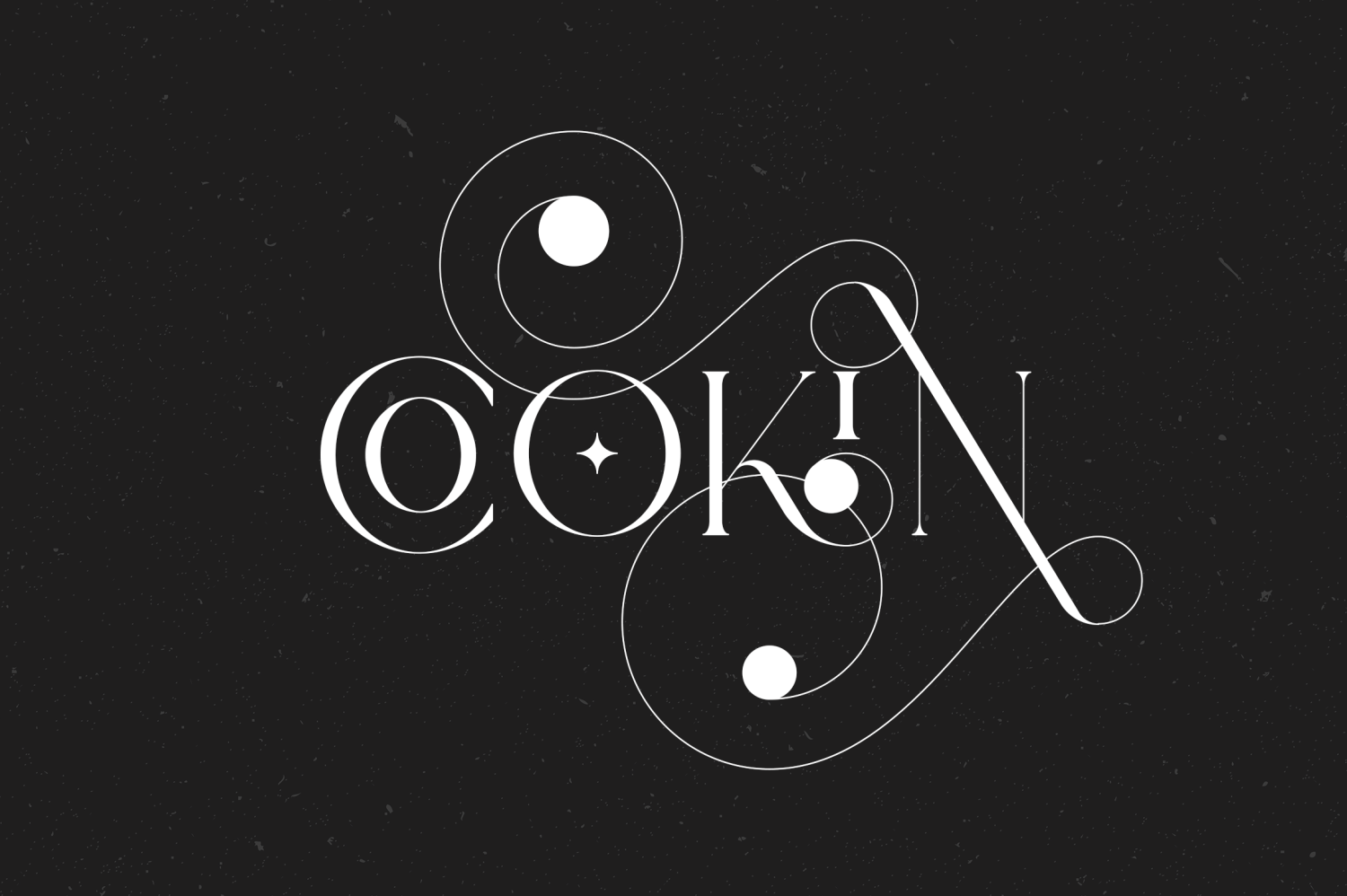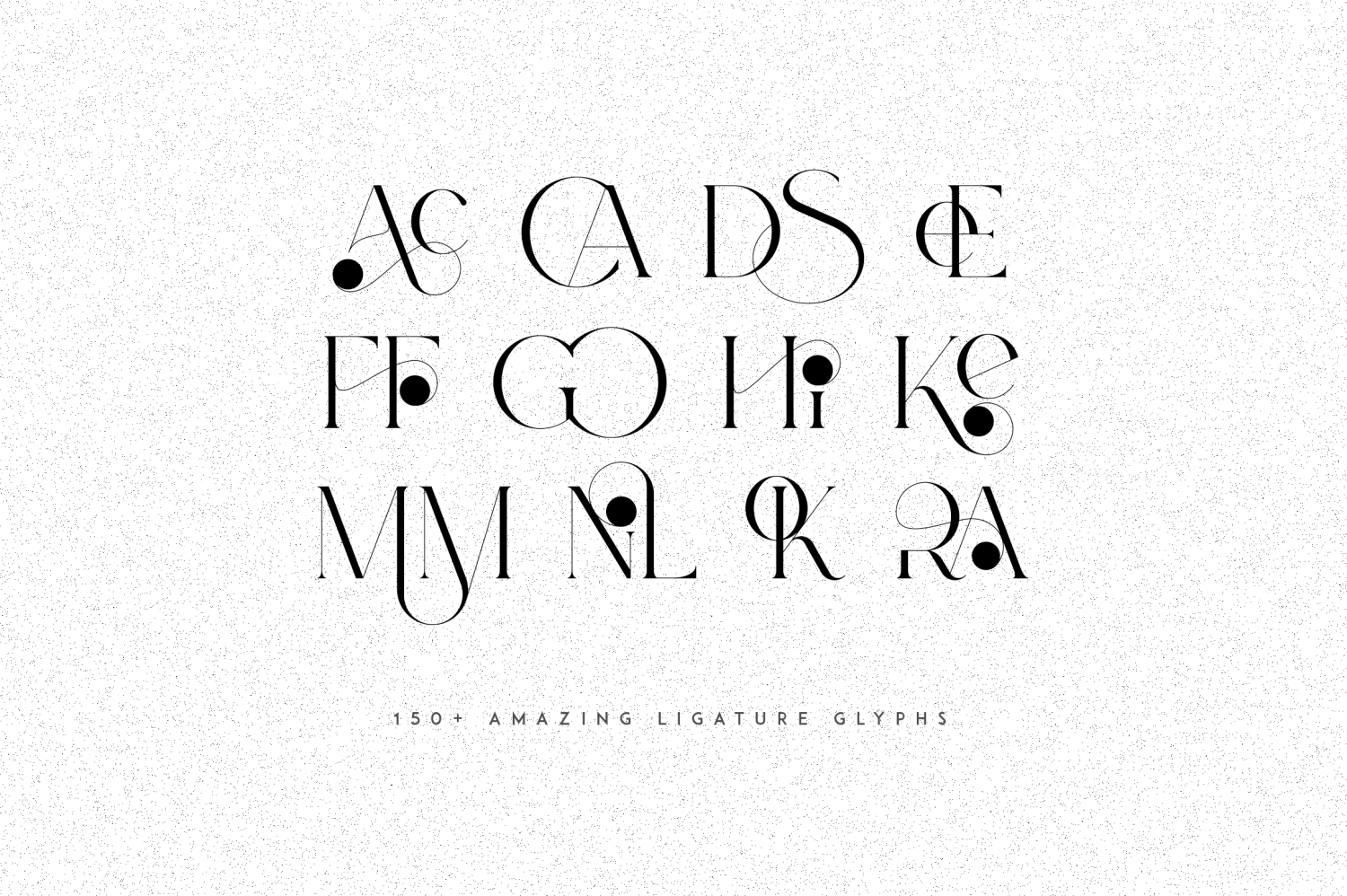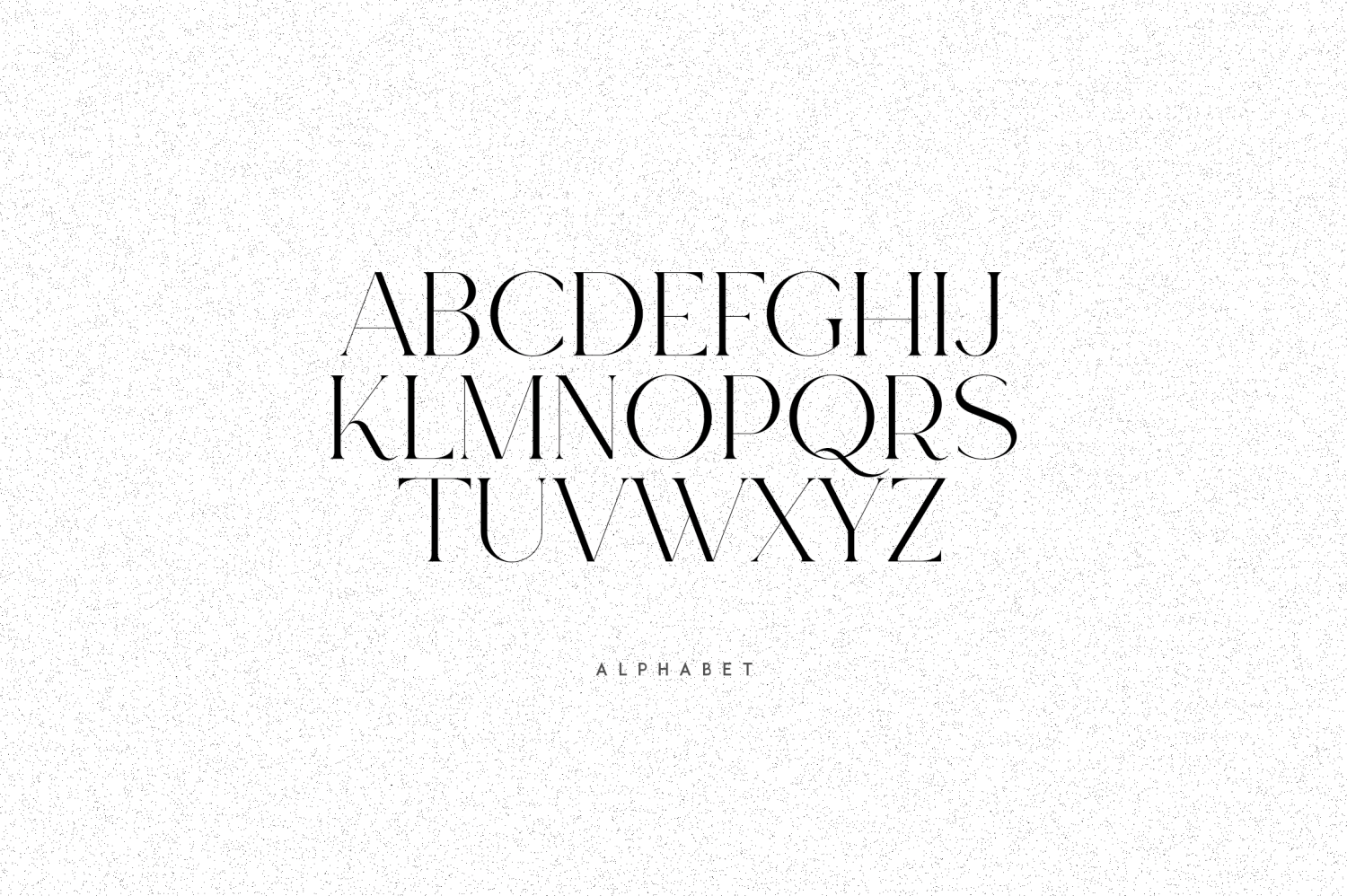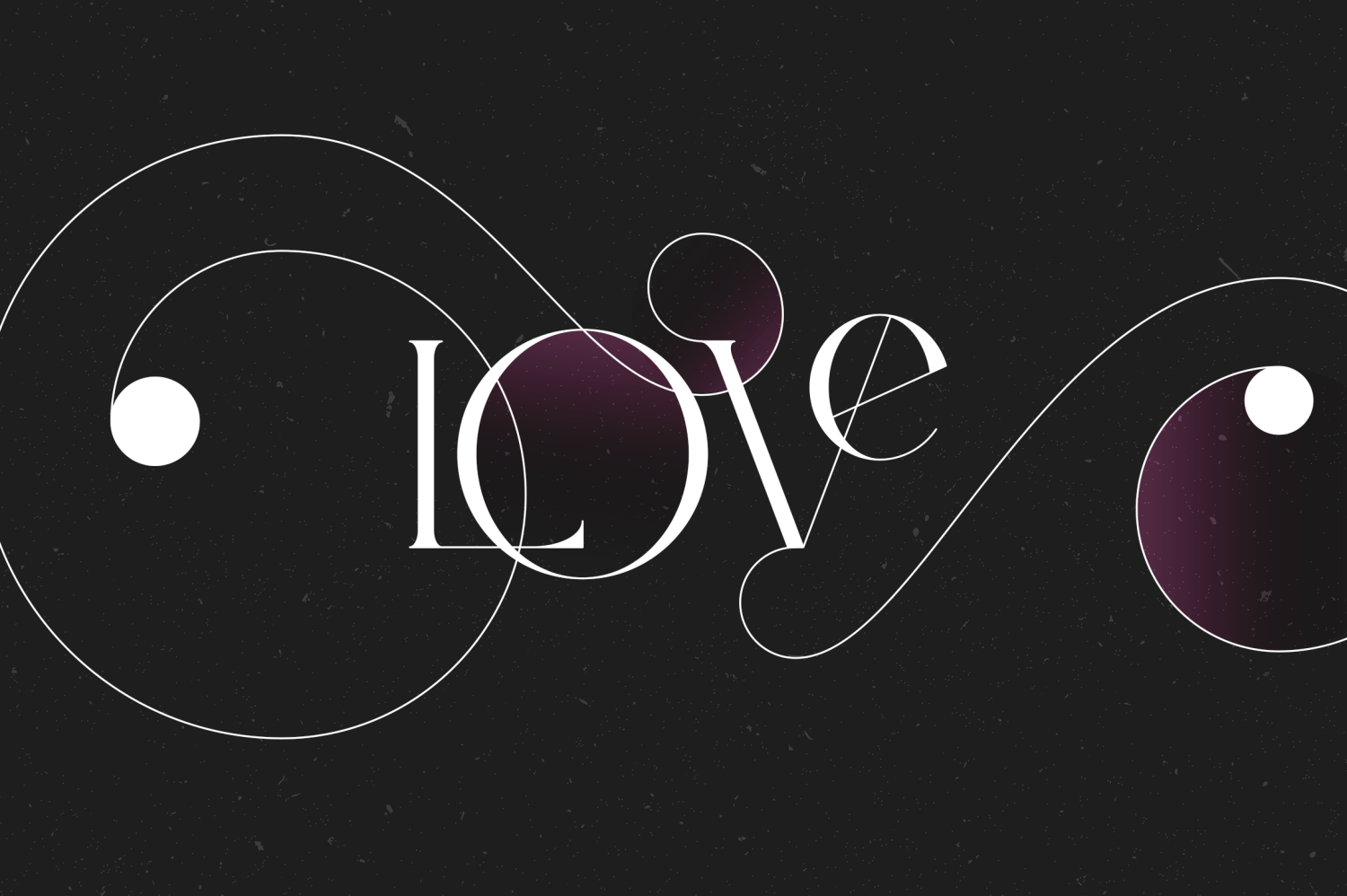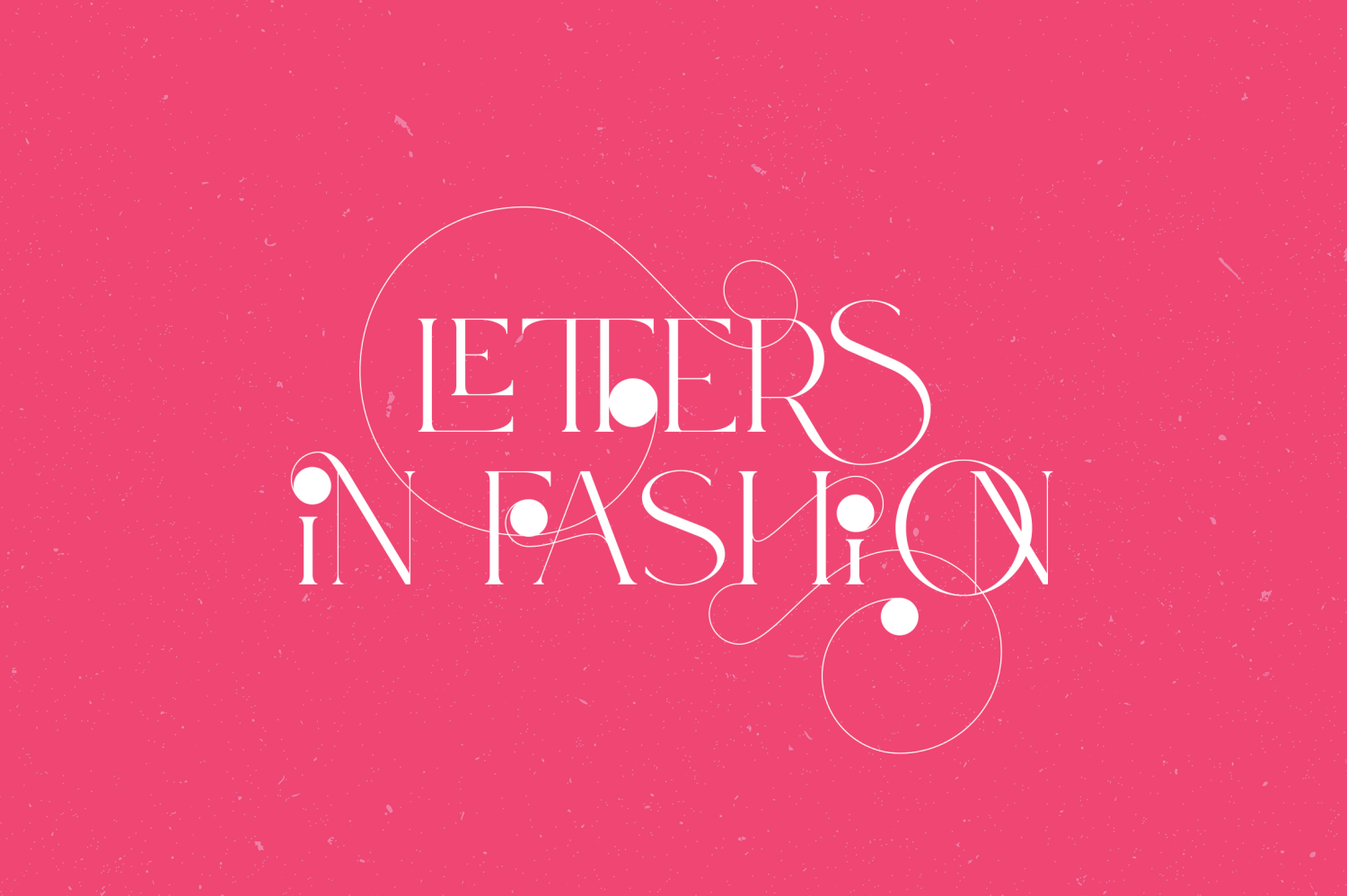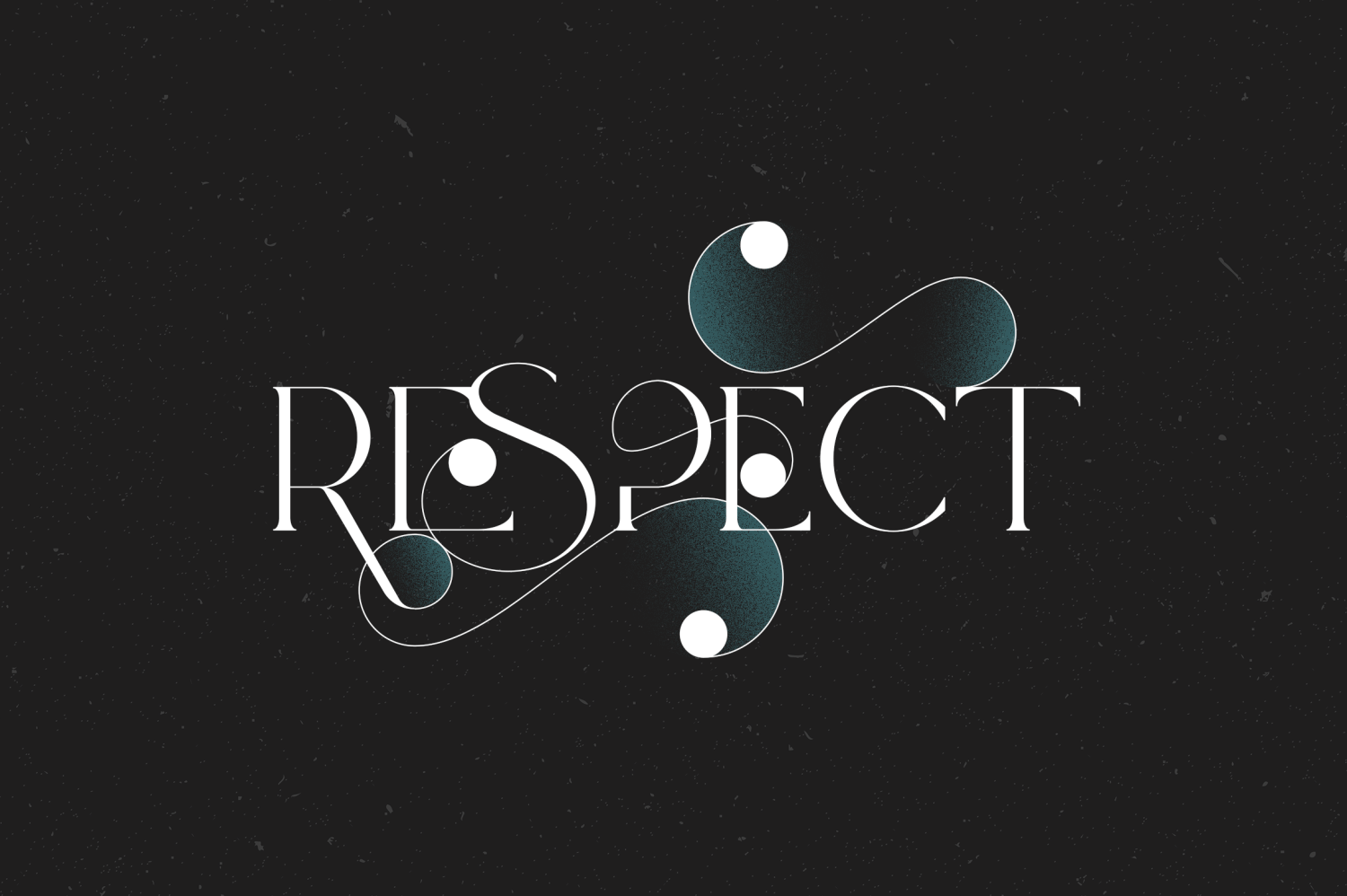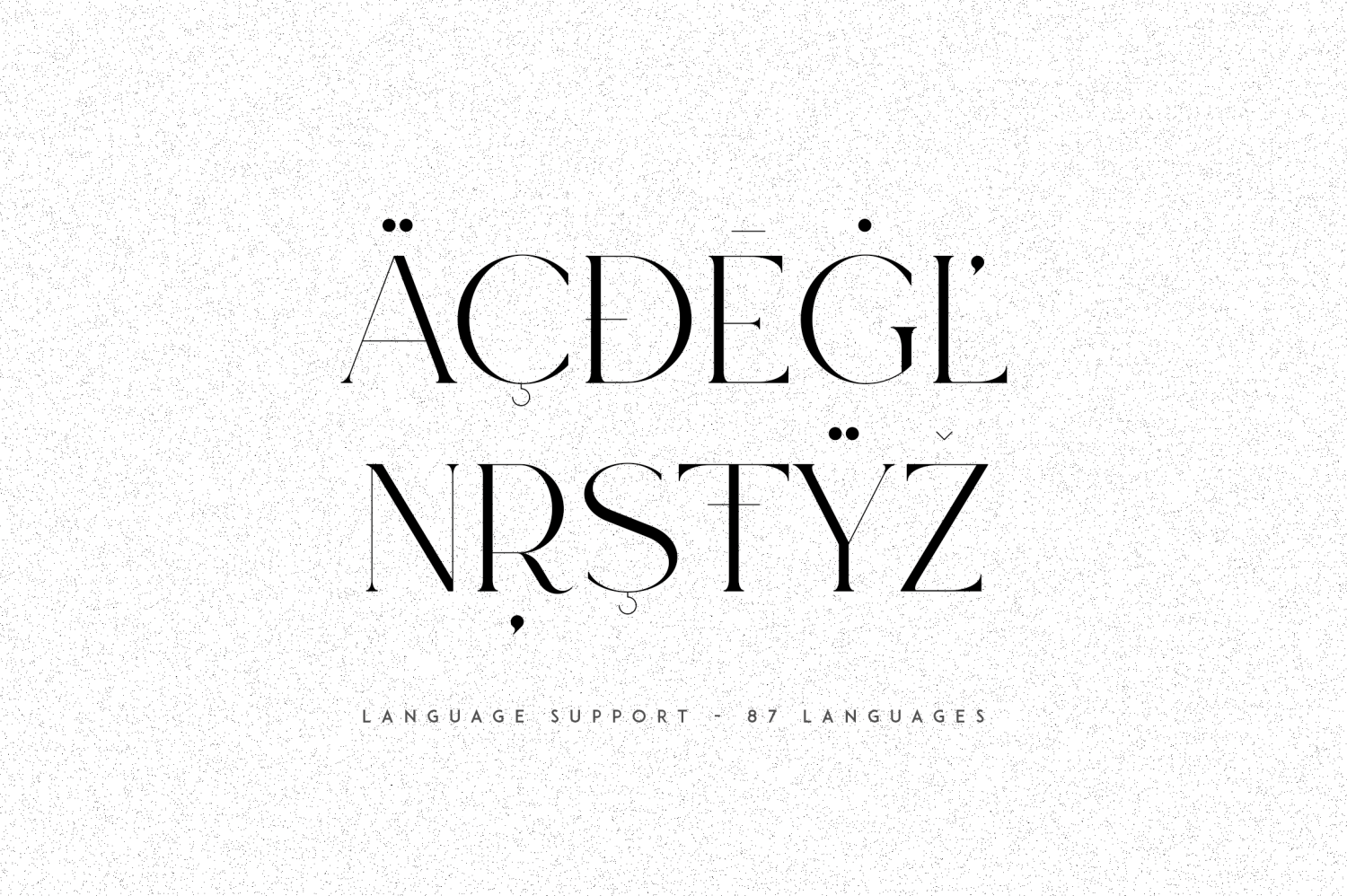
About Moon Type
Introducing Moon Type, a delightful and versatile serif logo font that exudes creativity and charm. With over 150 ligature glyphs and alternate characters, this font offers a wide range of design possibilities, allowing you to craft unique and visually…